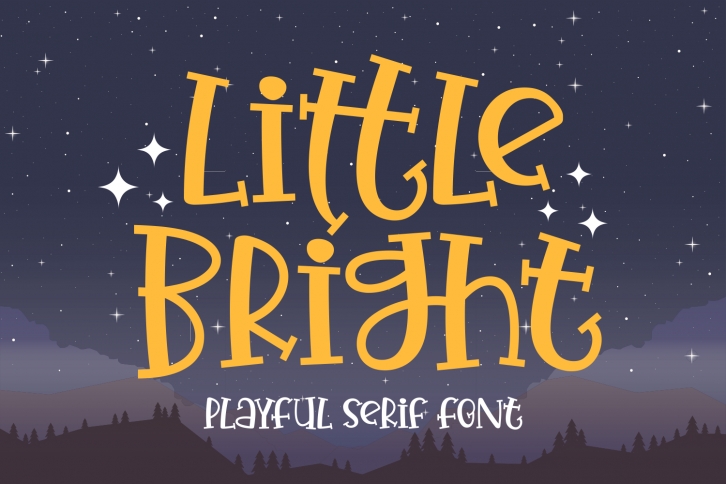
Little Bright is a playful and quirky display font. Its informal style and casual vibe will make this font a go-to choice for each of the creations that require a relaxed touch.